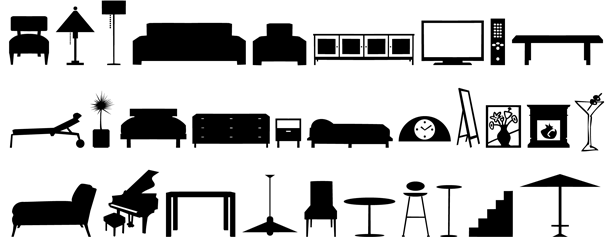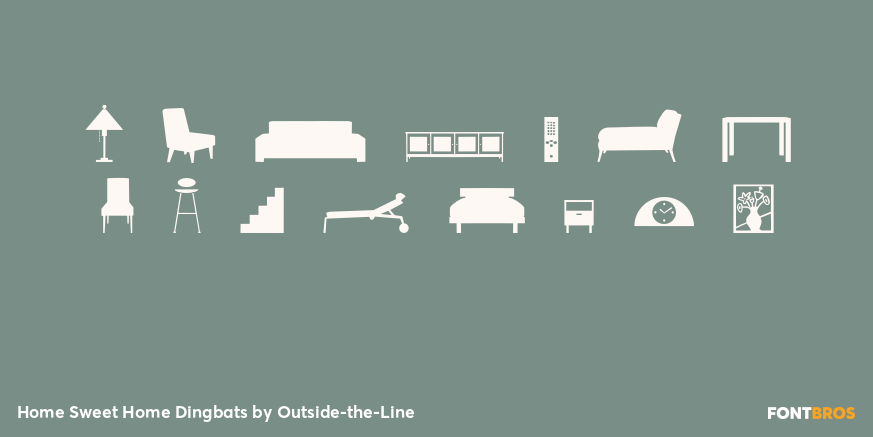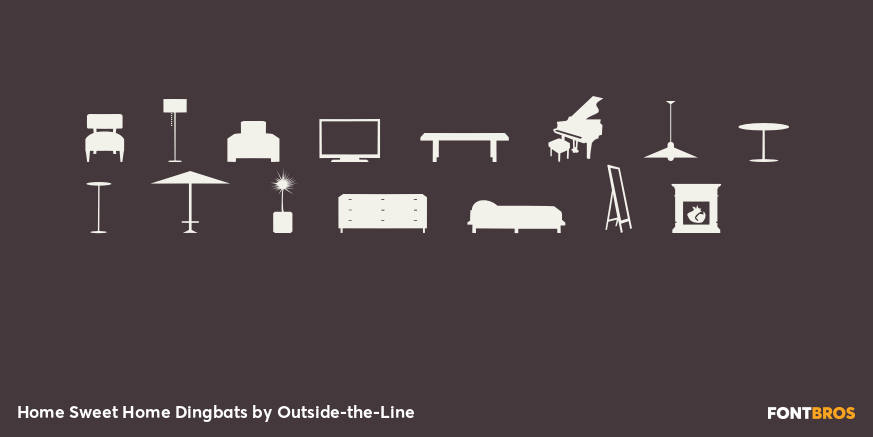
Home Sweet Home Dingbats
Font Family by Outside-the-Line
Home Sweet Home Dingbats is a 30 dingbat font of home things. Use them as dingbats or enlarge the small pictures and use them as clipart. Silhouettes include several lamps, clock, chaise, chairs, sofa, nightstand, chest, TV & remote, tables, stool, steps, beds, mirror, art, a fireplace and even a baby grand piano.